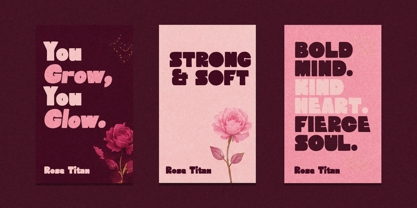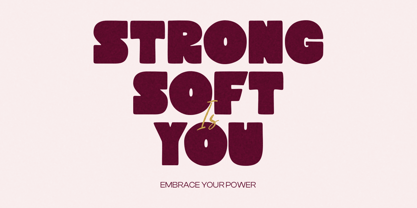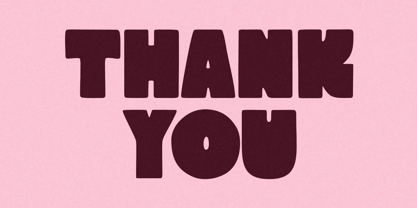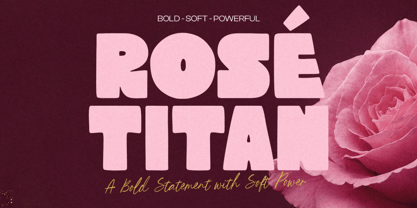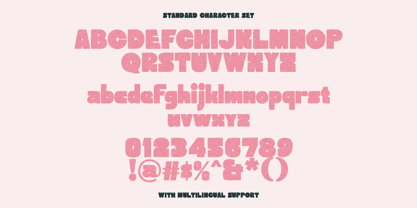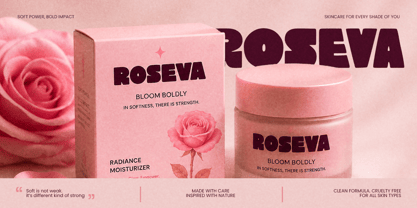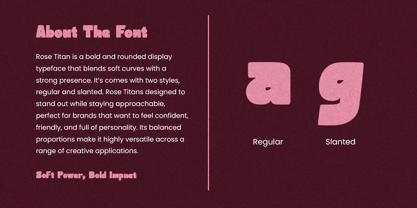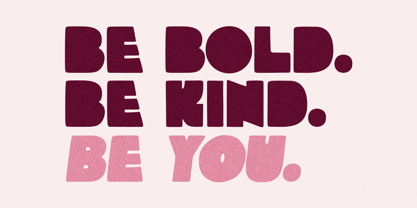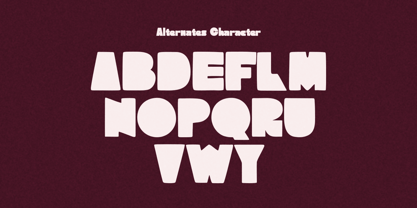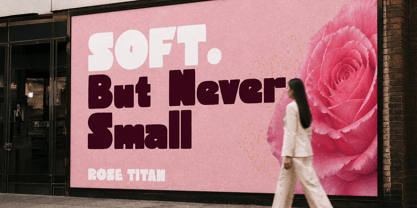
Rose Titan
by Littlehand
The Rose Titan Font Family was designed by Hendry Juanda and published by Littlehand. Rose Titan contains 2 styles and family package options. More about this family
Rose Titan is a bold display font with chunky curves, soft corners, and a strong feminine energy that feels both powerful and sweet at the same time. Inspired by retro poster styles and modern beauty branding, this typeface brings a smooth confident look without losing its playful charm.
Features :
• Uppercase & lowercase
• Numbers and punctuation
• Alternates & Ligatures
• Multilingual Support
Designers: Hendry Juanda
Foundry: Littlehand